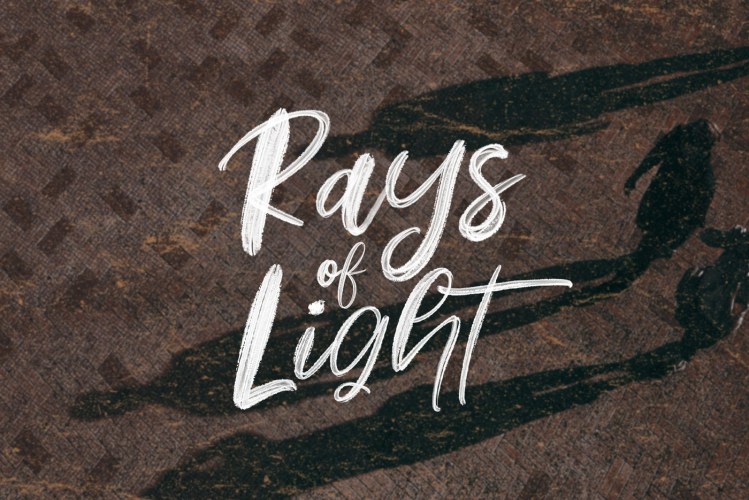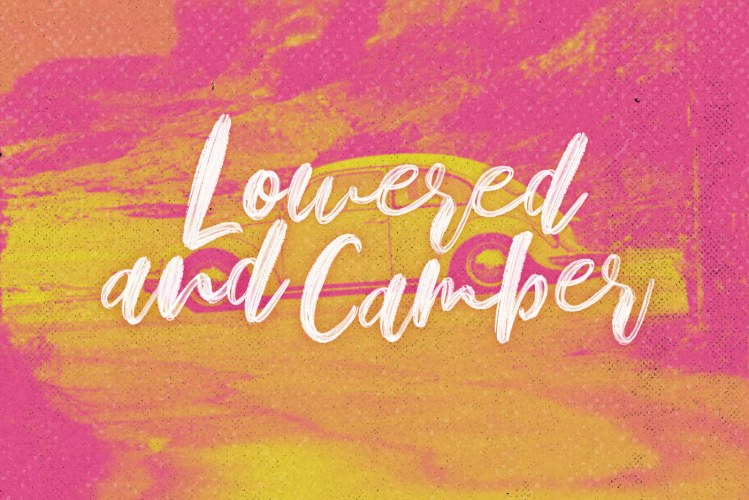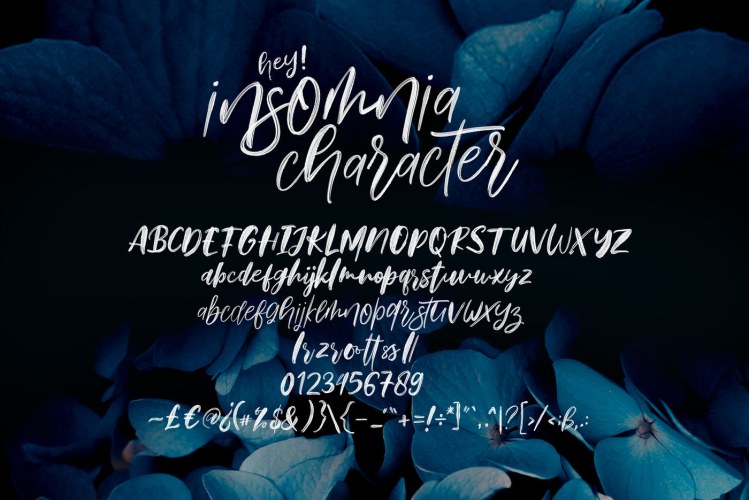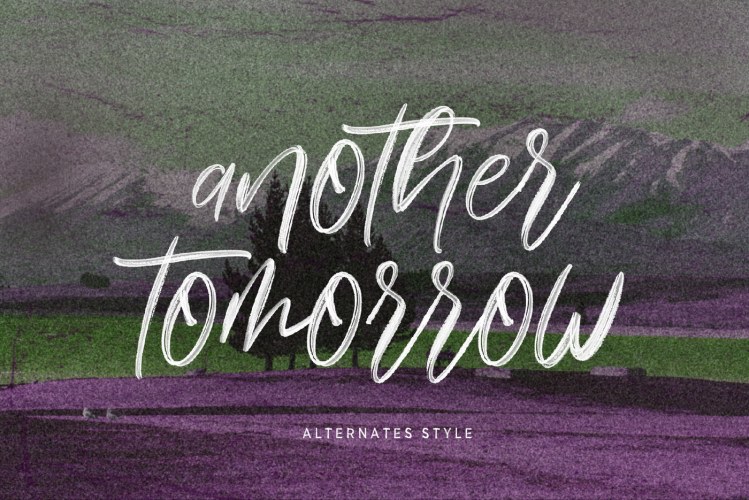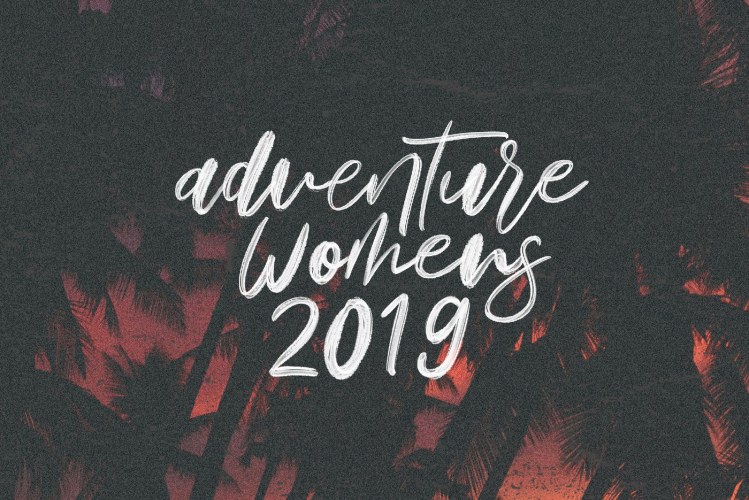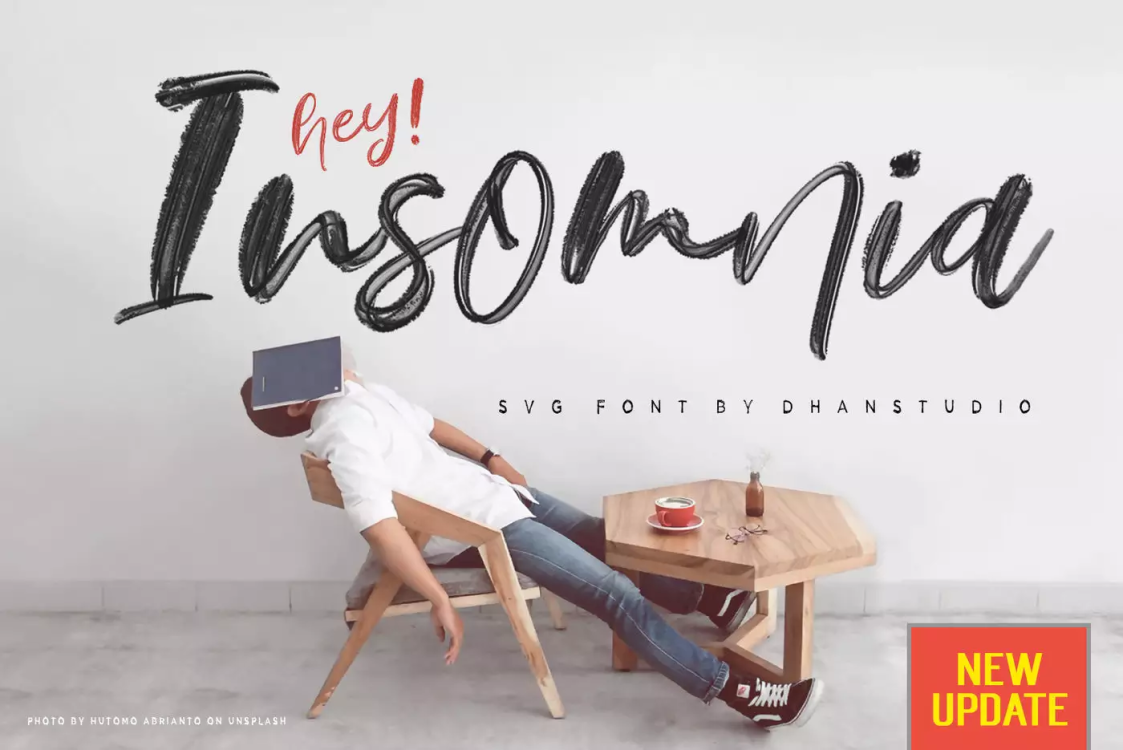
Hey Insomnia SVG Font
Where Hey Insomnia SVG Font works best
Bold branding
Hey Insomnia SVG Font brings energy to sports, fitness, streetwear and surf brands.
Merch & apparel
Brush lettering prints beautifully on T-shirts, tote bags and stickers.
Social media & thumbnails
Punchy brush strokes grab attention in stories, reels covers and thumbnails.
What is Hey Insomnia SVG Font good for?